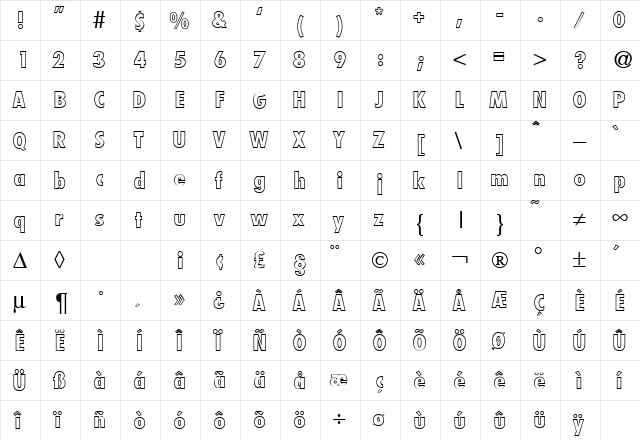
FunctionCondTwoOutExtrabold DB Regular
Design Context for FunctionCondTwoOutExtrabold DB Typeface
FunctionCondTwoOutExtrabold DB trades formality for fun, with bouncy, characterful letterforms that bring warmth and energy to any project.
Font Pairing: Pairs well with a rounded or humanist sans for body copy, maintaining the friendly tone without relying on FunctionCondTwoOutExtrabold DB to carry extended reading.
Pro Tip: Use FunctionCondTwoOutExtrabold DB at larger display sizes where its expressive character can land. Pair with a clean, simple sans for body copy to maintain readability.